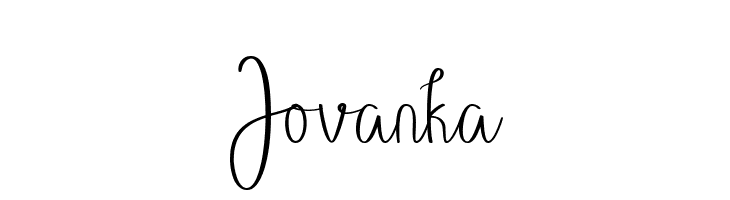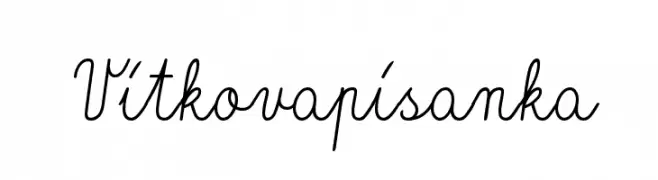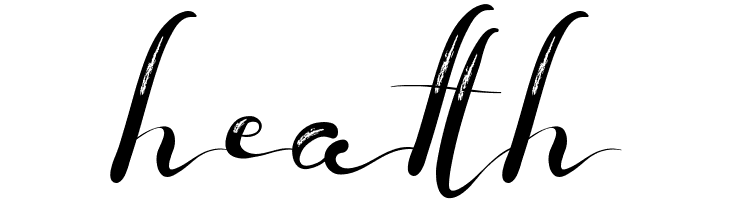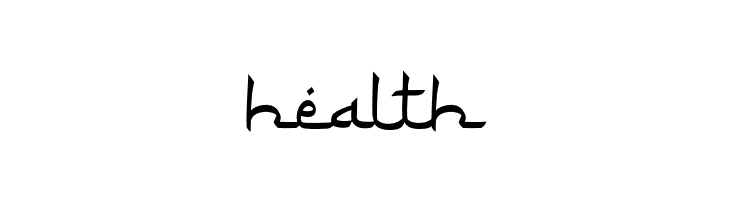
A dynamic and fluid handwritten font with elegant, flowing letterforms.
An elegant, expressive script font with fluid, sweeping strokes and artistic flair.
A bold, hand-drawn font with dynamic strokes and an artistic flair.
A calligraphic, cursive font with modern elegance and fluid strokes.
An elegant, whimsical script font with flowing, interconnected letters and playful loops.
A cursive, handwritten-style font with elegant, flowing lines.
A dynamic and elegant script font with a flowing, handwritten style.
An artistic, calligraphic font with elegant curves and decorative elements.
A lively and expressive script font with a playful handwritten feel.
A whimsical and elegant handwritten script font with playful loops and curves.